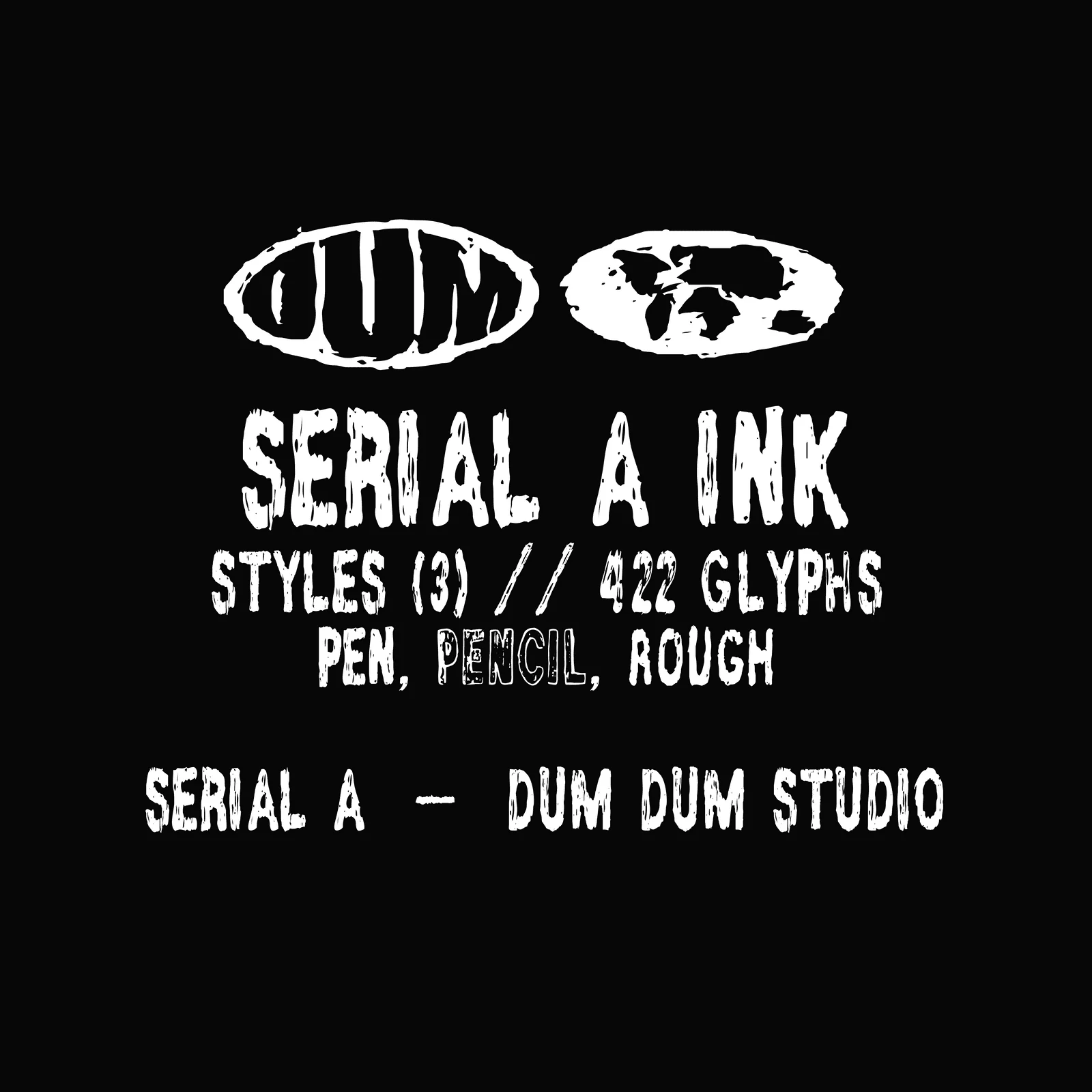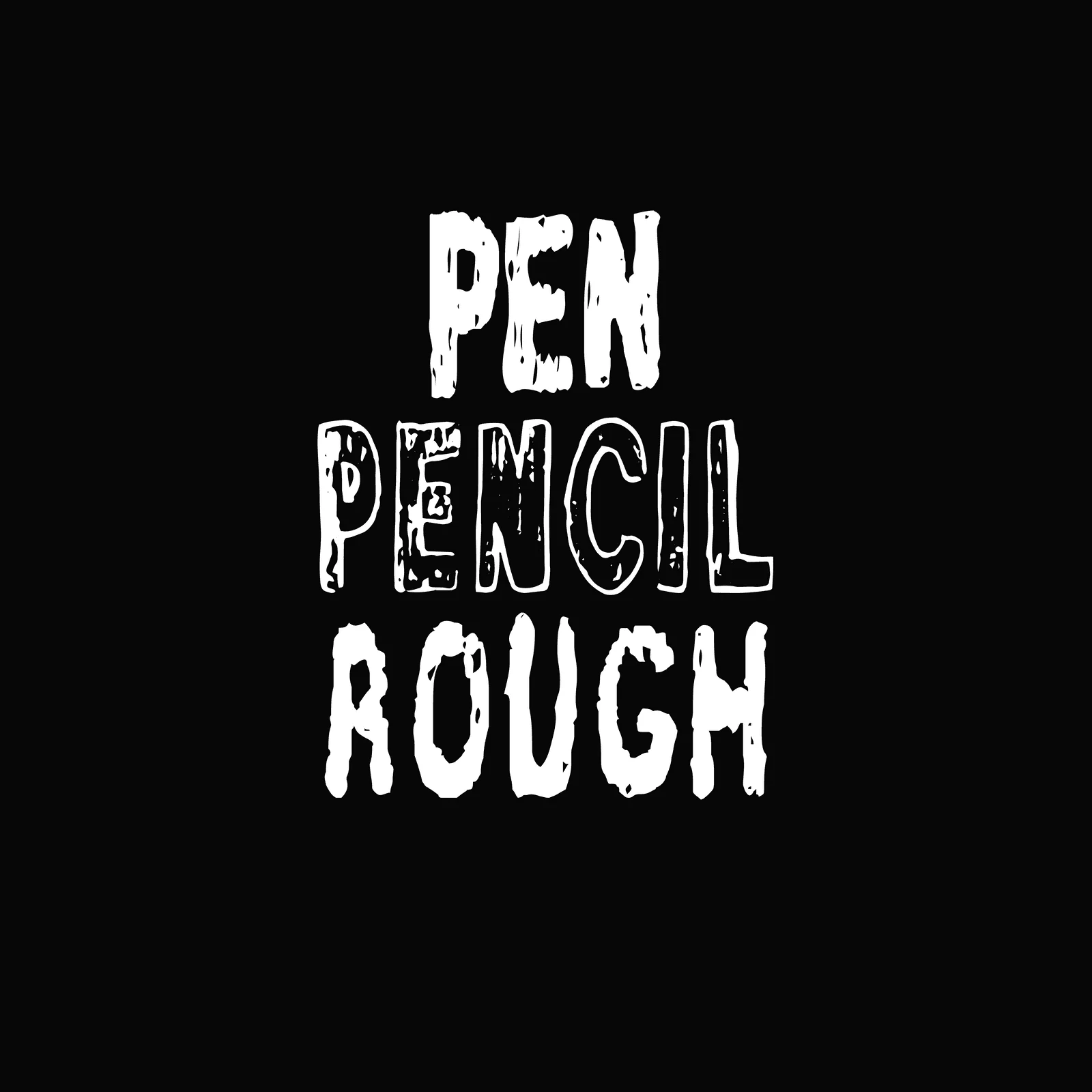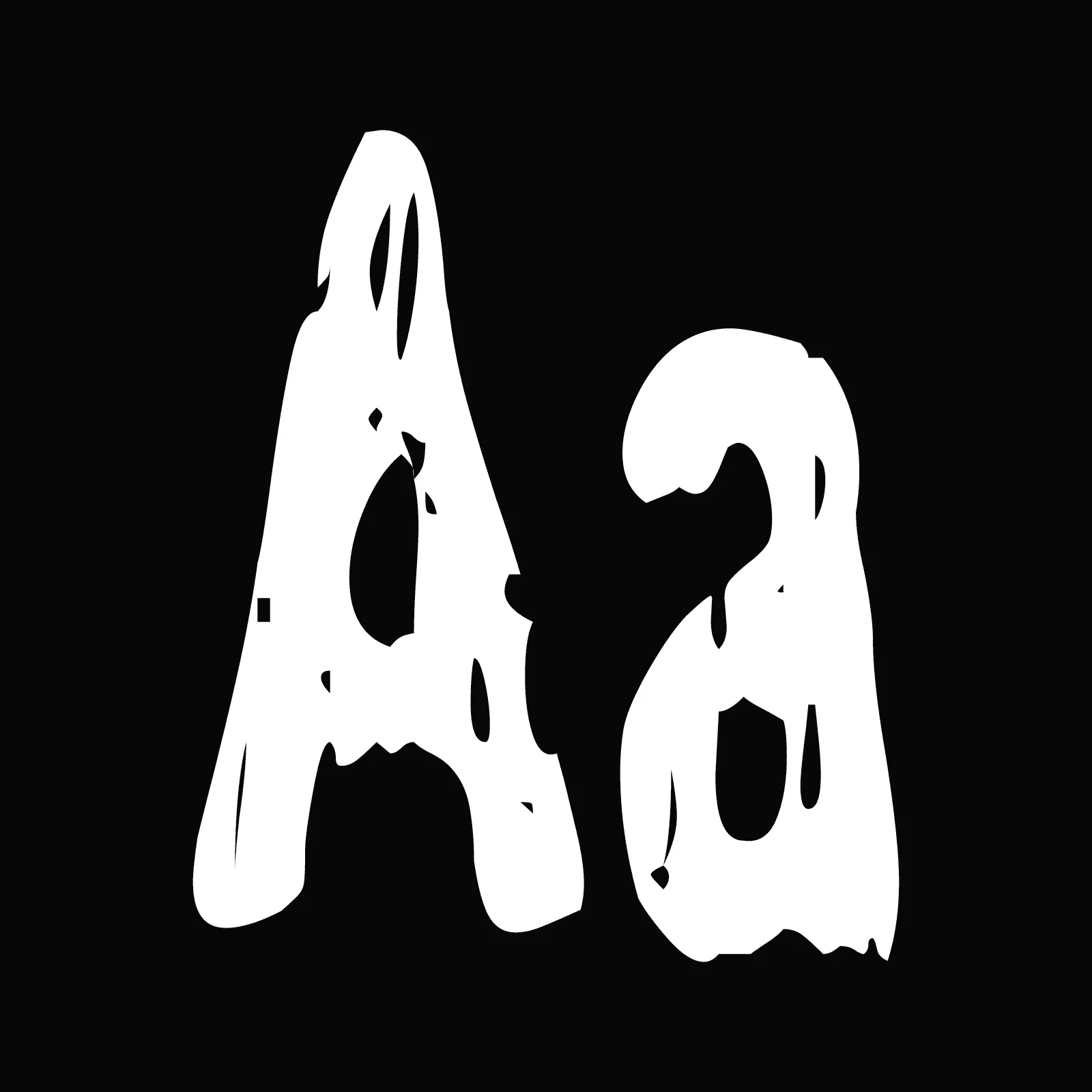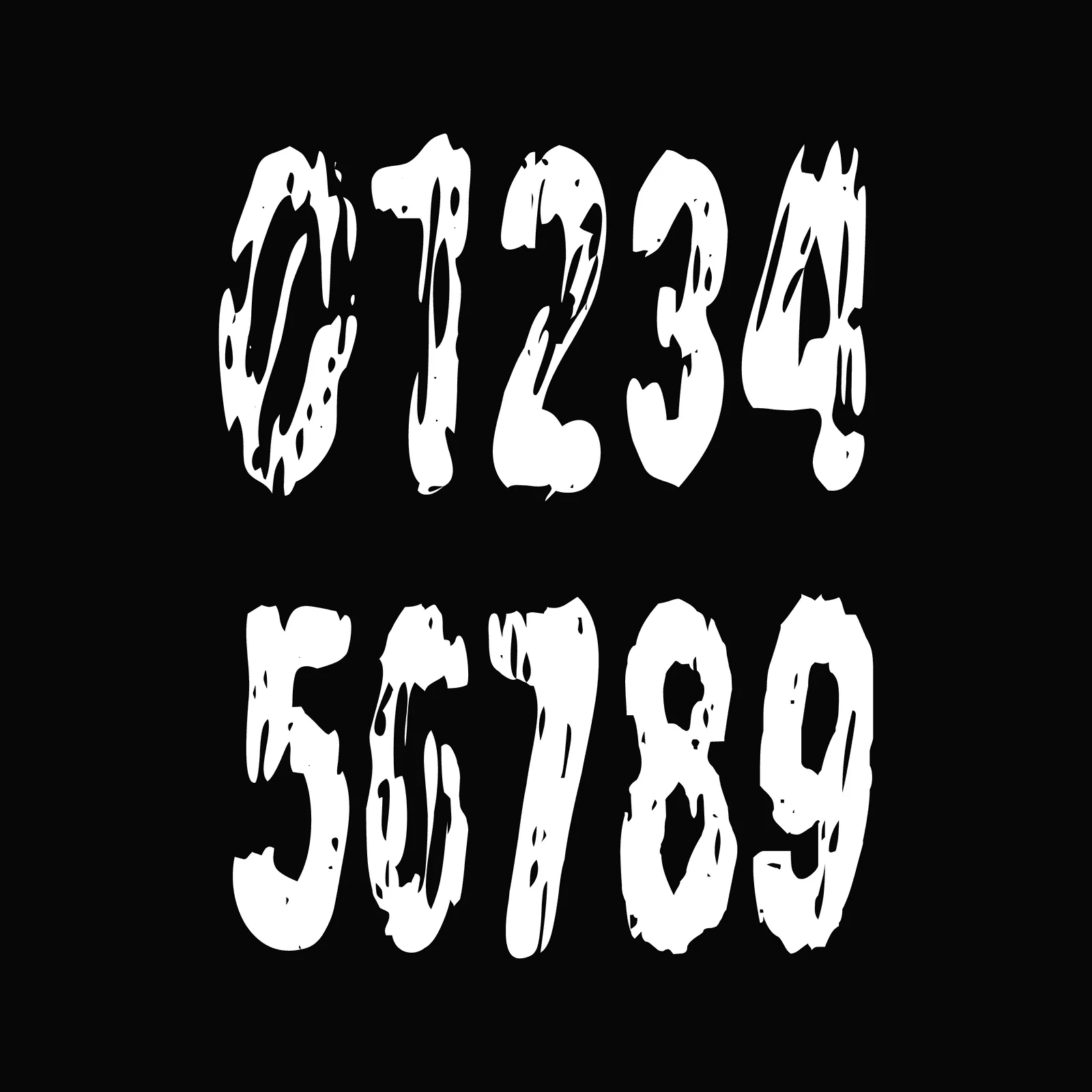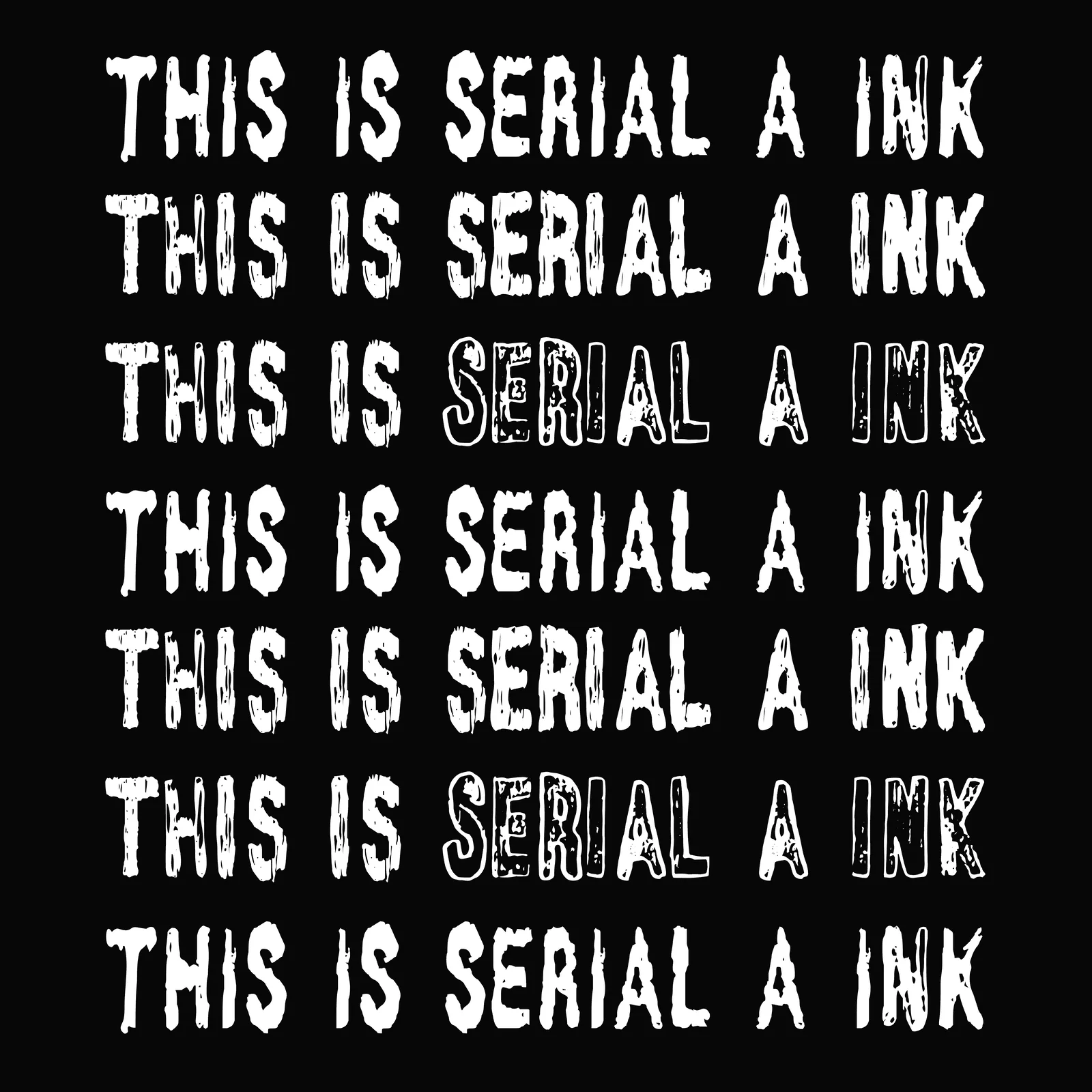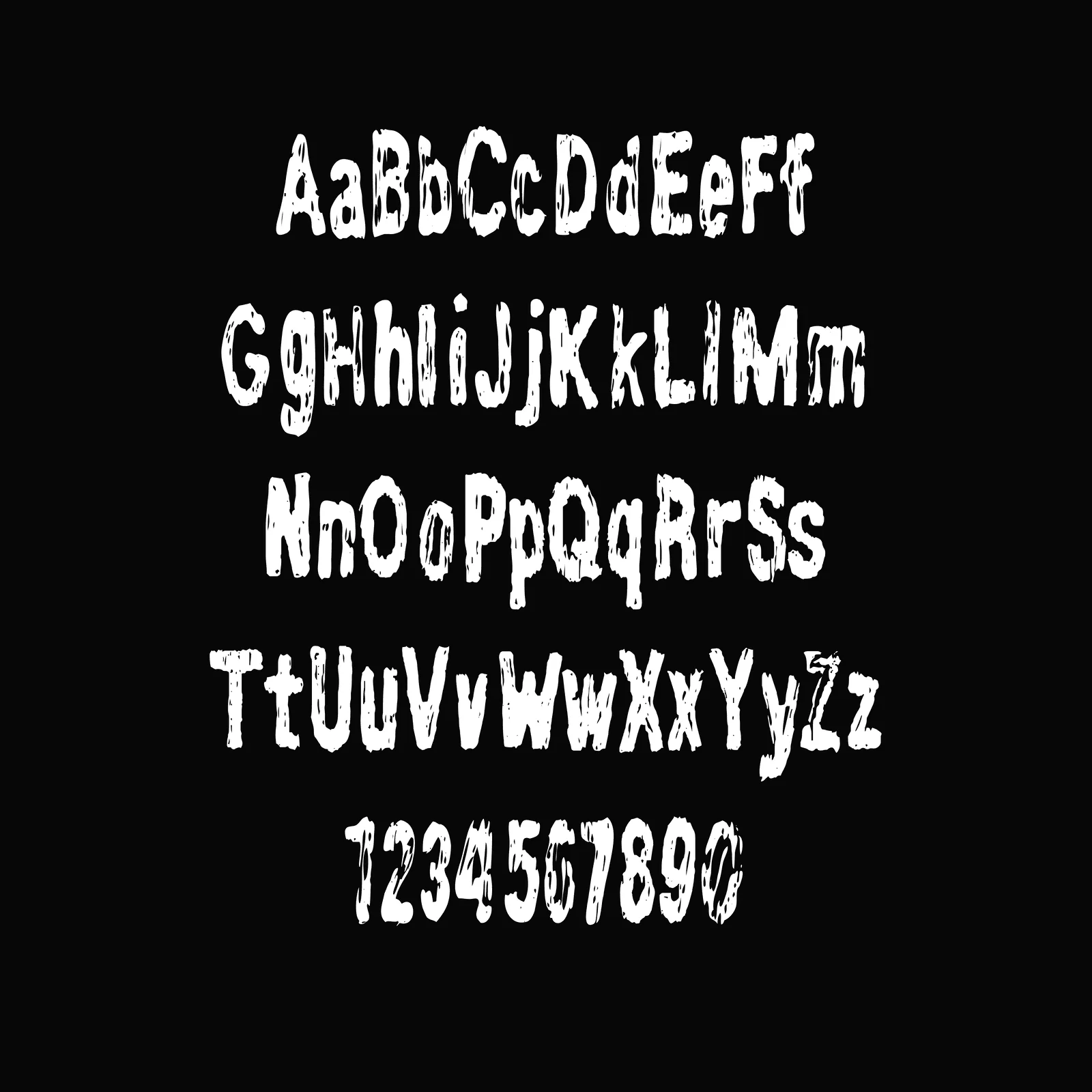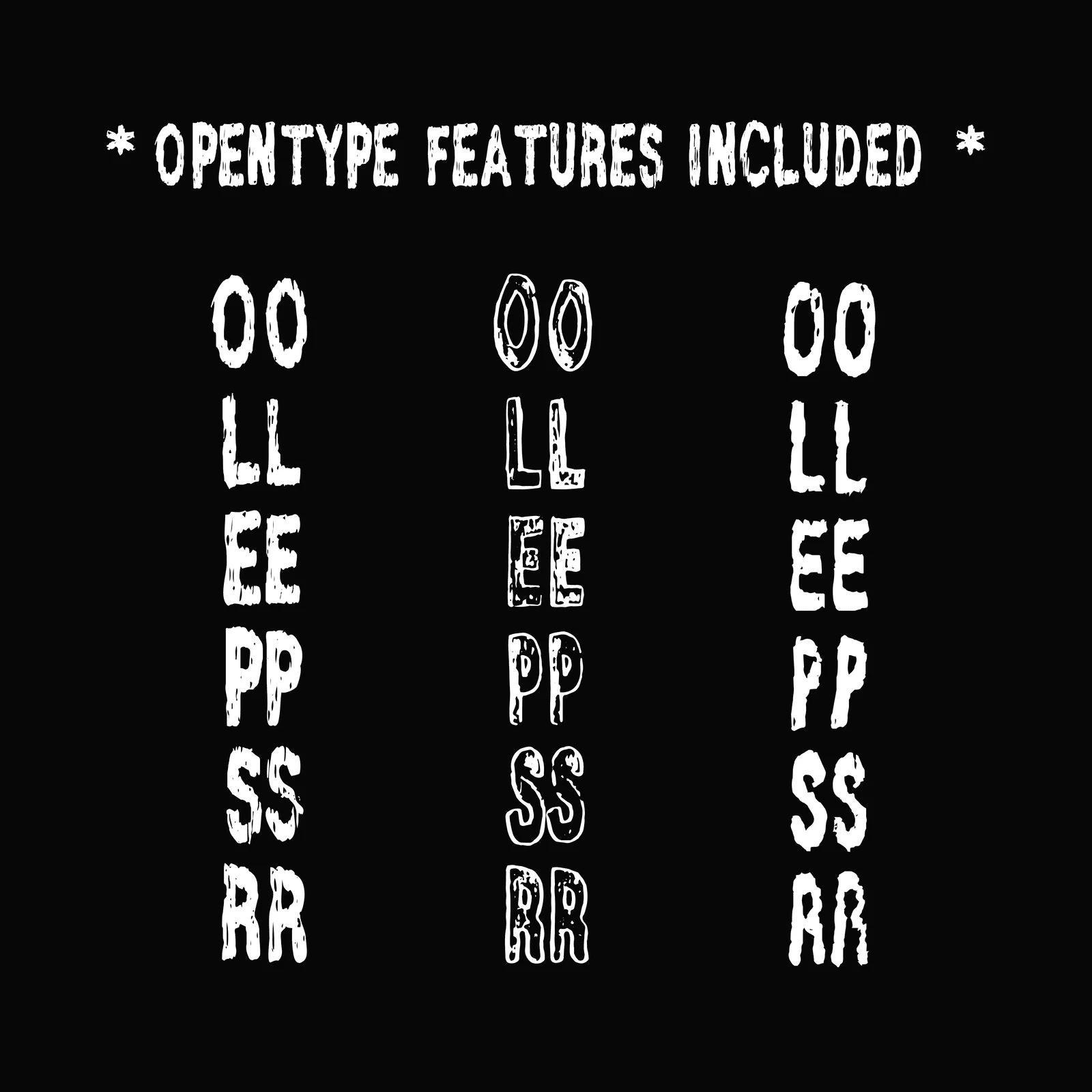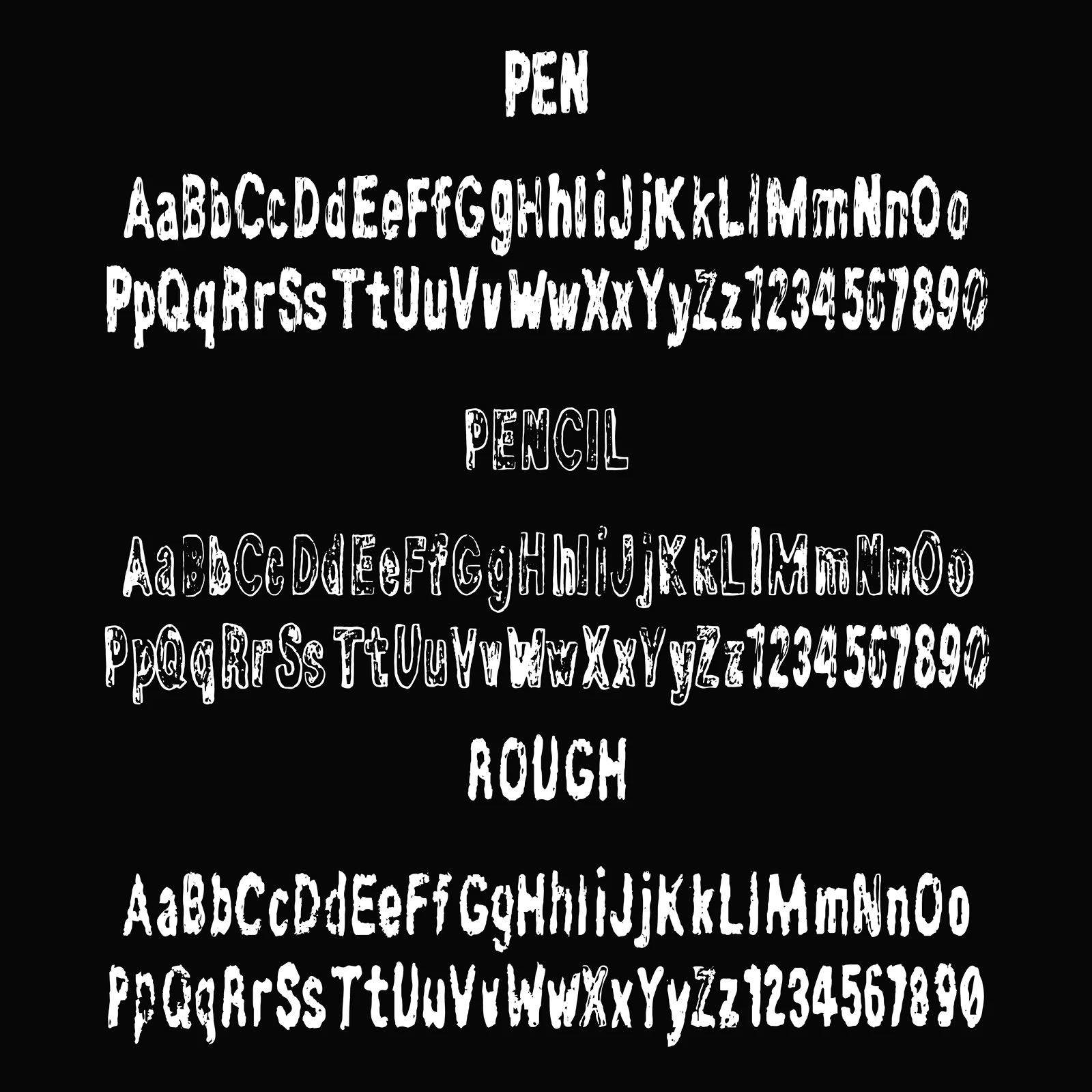
Serial A Ink
Serial A is a bold and contemporary typeface, characterised by its highly compressed and thick letterforms.
Serial A Ink conveys a hand-drawn, raw, textured feel to the letterforms.
Serial A is a bold and contemporary typeface, characterised by its highly compressed and thick letterforms.
Serial A Ink conveys a hand-drawn, raw, textured feel to the letterforms.